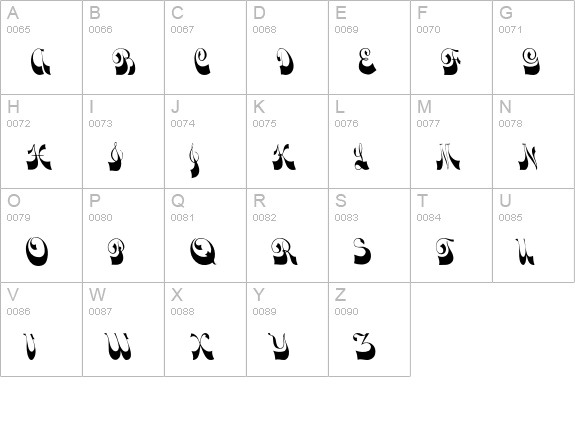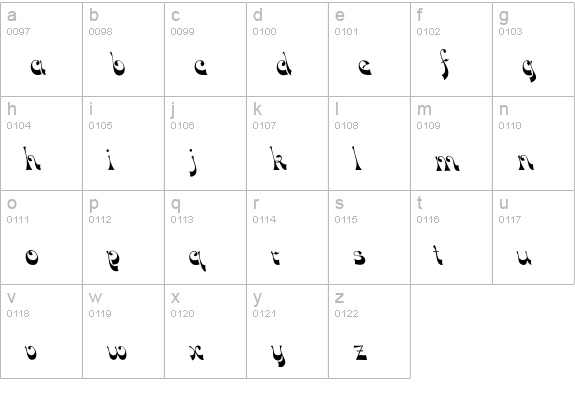
DownWind Font Details
DownWind font is a beautifully crafted typeface that exudes elegance and sophistication. With its intricate details and flowing curves, this font is perfect for adding a touch of charm to any design project. Whether you're creating invitations, logos, or social media graphics, DownWind font will make your text stand out with its unique style. What's even better is that DownWind font is available for free! You can easily download this stunning font at FontsMarket.com and start using it in your projects right away. Don't miss out on the opportunity to enhance your designs with the beauty of DownWind font. Download it now and add a touch of class to your work.